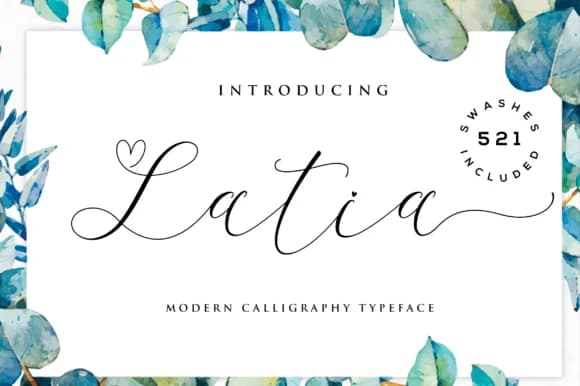
Picture a hand-written envelope arriving for a luxury wedding, or the cover of a leather-bound handmade zine. Latia Script Font, crafted by fanastudio, brings genuine personality to projects calling for a handcrafted feel, all without actually picking up a pen and spending hours lettering by hand. The script flows naturally across applications where that human touch matters most.
Wedding invitation suites benefit immediately from its organic elegance and flowing letterforms. Etsy product labels and artisanal packaging designs gain an authentic sense of care that customers notice right away. Social media graphics, from coffee shop menu promotions to handmade soap branding, feel far more genuine when set in this typeface rather than something geometric or corporate. Watermarked photography picks up warmth and character, while special event posters carry the feeling of something personal rather than mass-produced. Even logo designs and brand marks take on a distinctly human quality that script fonts provide naturally.
What makes it practical for real work is how cleanly it reads at display sizes and scales well in both large applications like signage and smaller detailed work like product tags. The connected letterforms stay cohesive without becoming hard to read. Grab Latia Script Font on Creative Fabrica to add that genuine human touch to your next project.
Latia Script Font is a script font that shines as a display or heading face. Pair it with a clean sans-serif or serif font for body text β the contrast creates a clear hierarchy while the two styles stay balanced and easy to read.